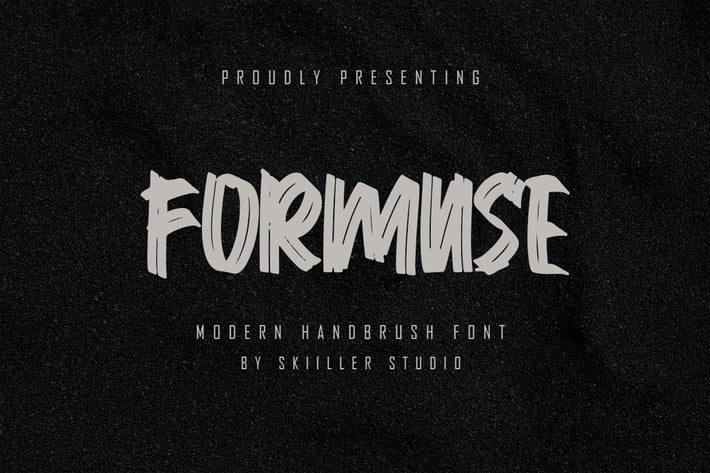
Formuse -Modern Handbrush Font
Formuse Handbrush is a dry handbrushed font, designed to combine perfectly and allows you to create stunning handwriting quickly and easily. Ideal for logos, handwritten quotes, product packaging, headers, posters, merchandise, social media & greeting cards.
+ Uppercase & Lowercase letters
+ Numbering and Punctuations
+ Multilingual Support
+ Basic Latin Language Support (AÀÁÂÃÄÅCÇDÐEÈÉÊËIÌÍÎÏÑOØÒÓÔÕÖUÙÜÚÛWYÝŸÆß )